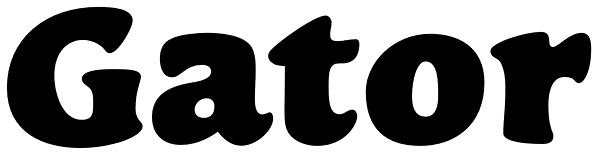
Gator
Cooper Black's second coming to American design in the mid-sixties, after almost four decades of slumber, can arguably be credited with (or, depending on design ideology, blamed for) the domino effect that triggered the whole art nouveau pop poster...